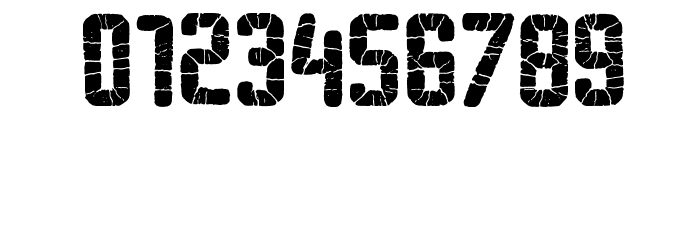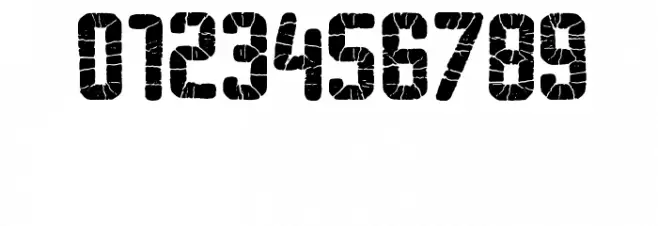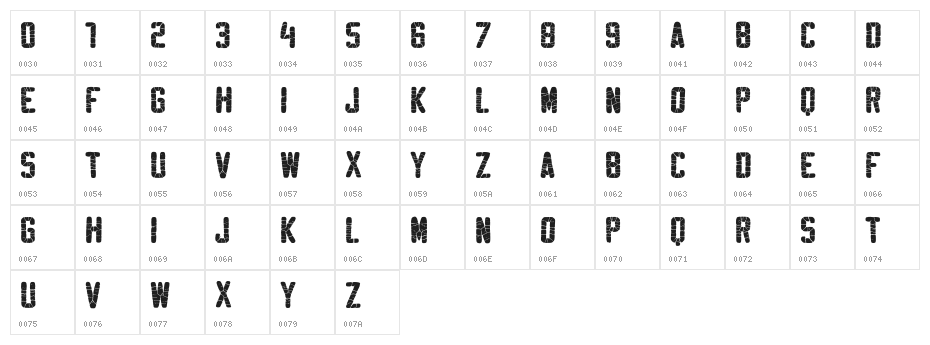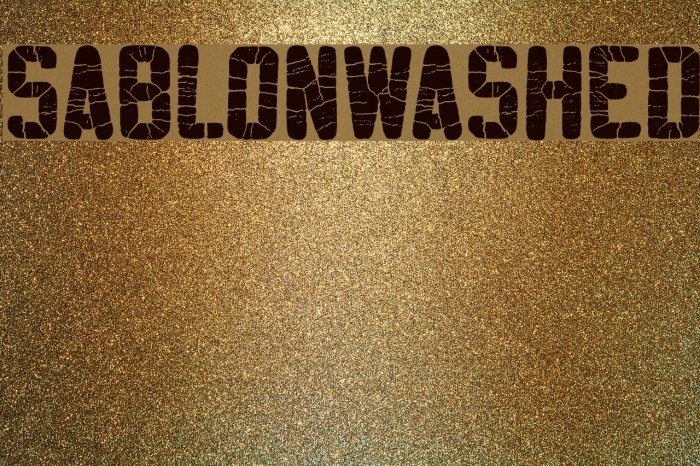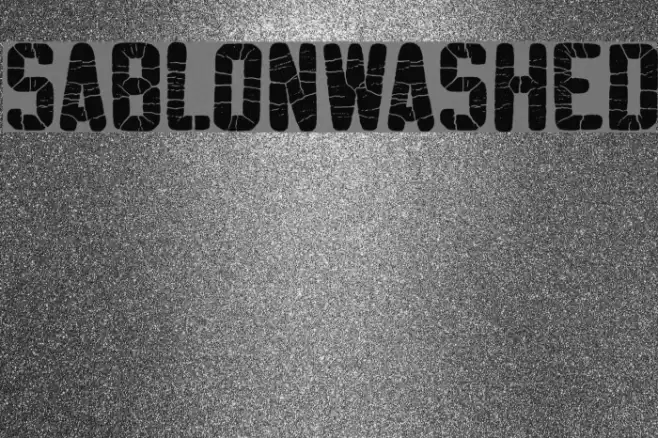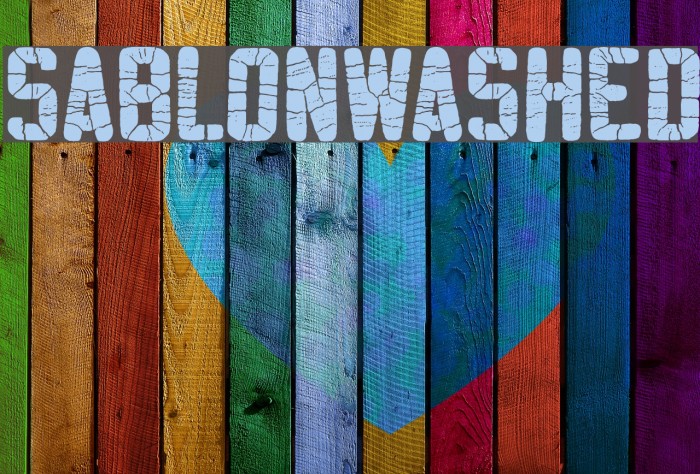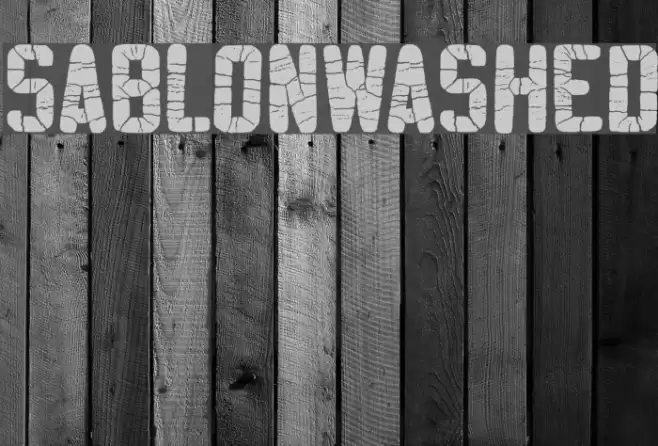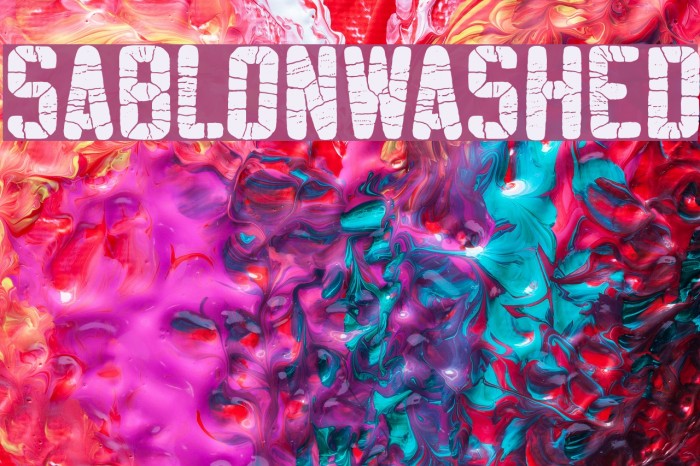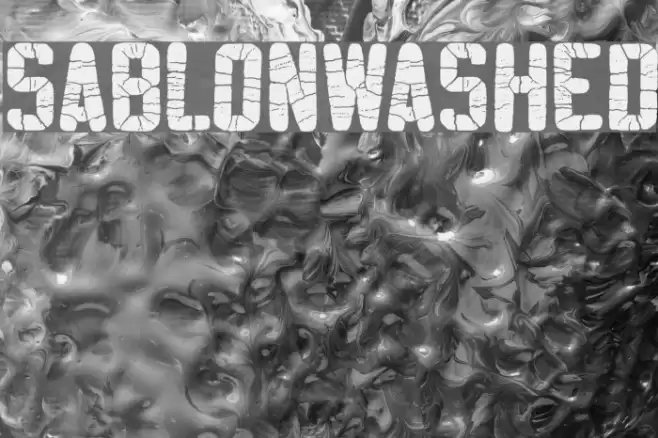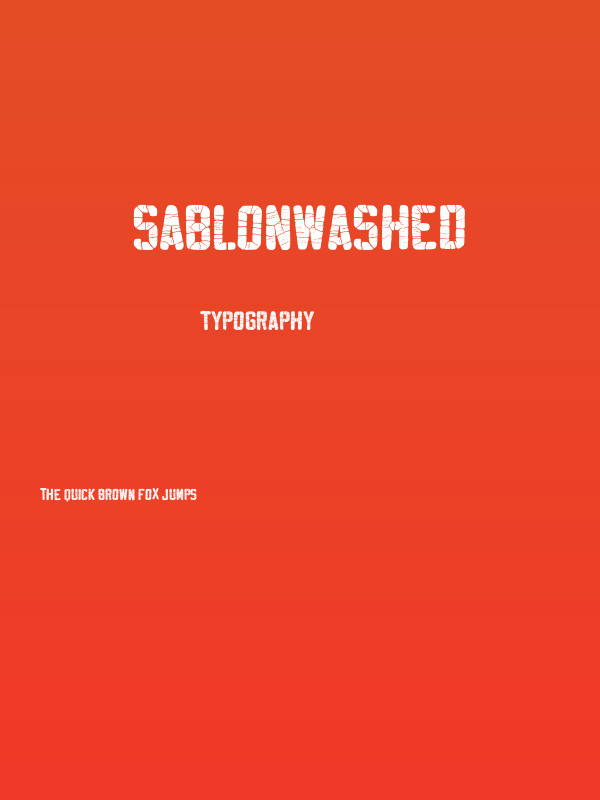
SablonWashed Font
SablonWashed Description
This font features a bold, distressed style with a cracked texture that gives it a rugged, worn appearance. The characters are blocky and uniform in width, creating a strong and impactful presence. The uppercase letters are consistent in height, while the numbers maintain the same boldness and texture. This font's unique cracked design adds a vintage or grunge aesthetic, making it suitable for projects that require a bold statement. The spacing between characters is normal, allowing for readability despite the distressed effect. The overall style is decorative and eye-catching, perfect for creative and artistic applications.
| Proposed Projects | Ideal for posters, album covers, branding, and any design needing a bold, vintage look. |